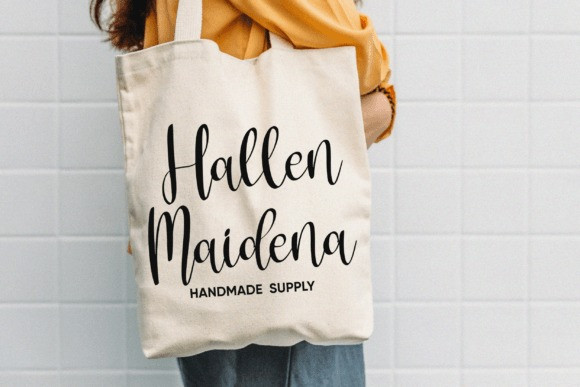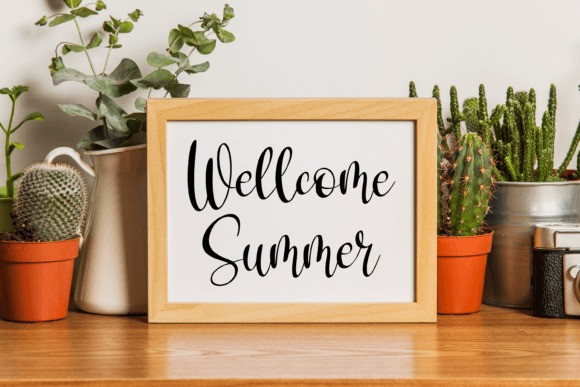
Radicalis Script Font
Introducing Radicalis – Beautiful Calligraphy. Made with naturally handwritten and modern style. it’s bring beautiful and modern typeface. Radicalis Font best use for wedding, branding, logotype and quotes.